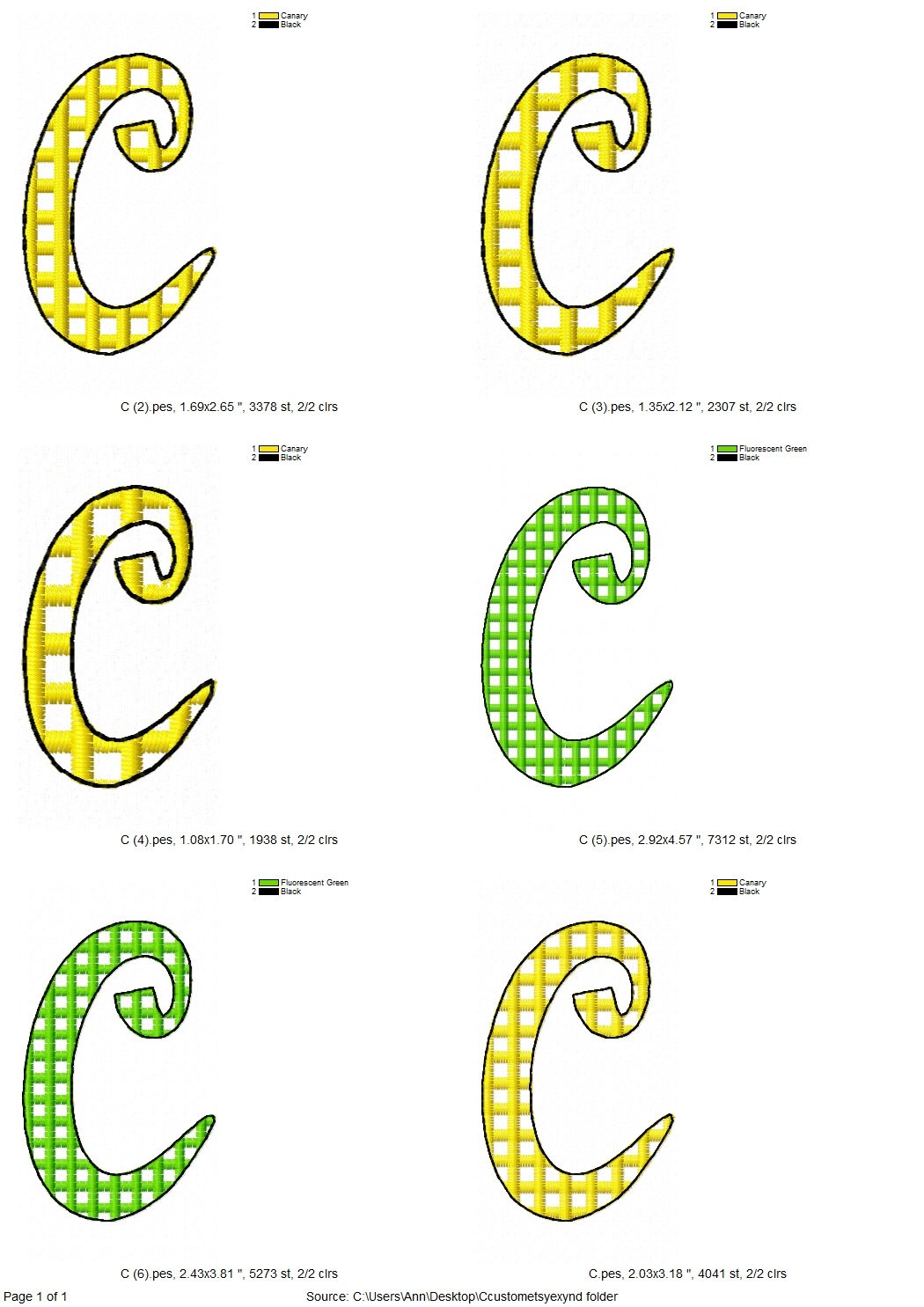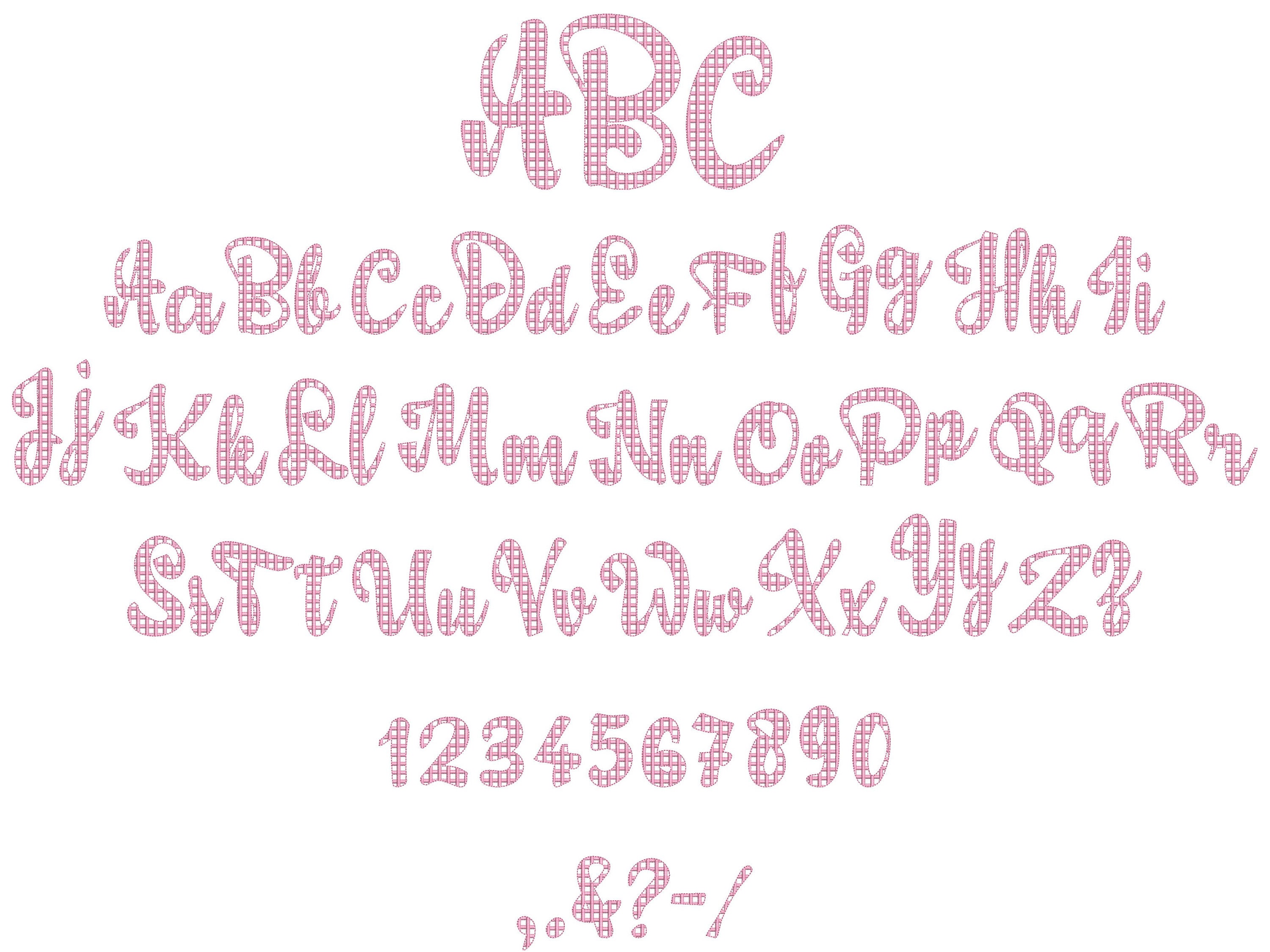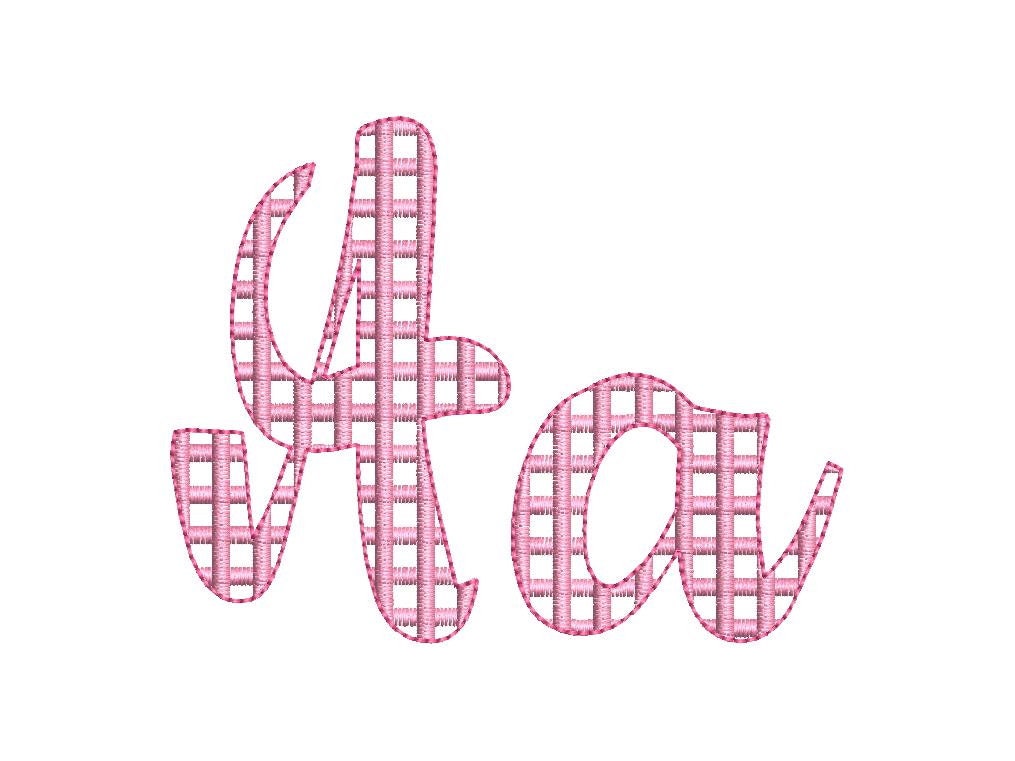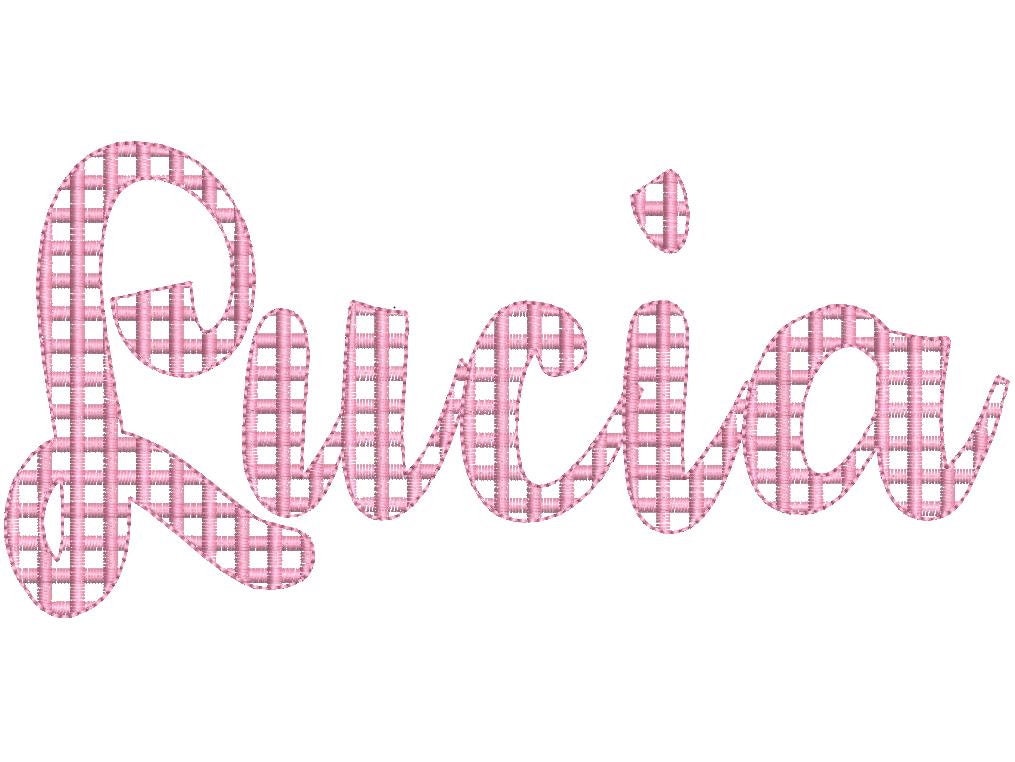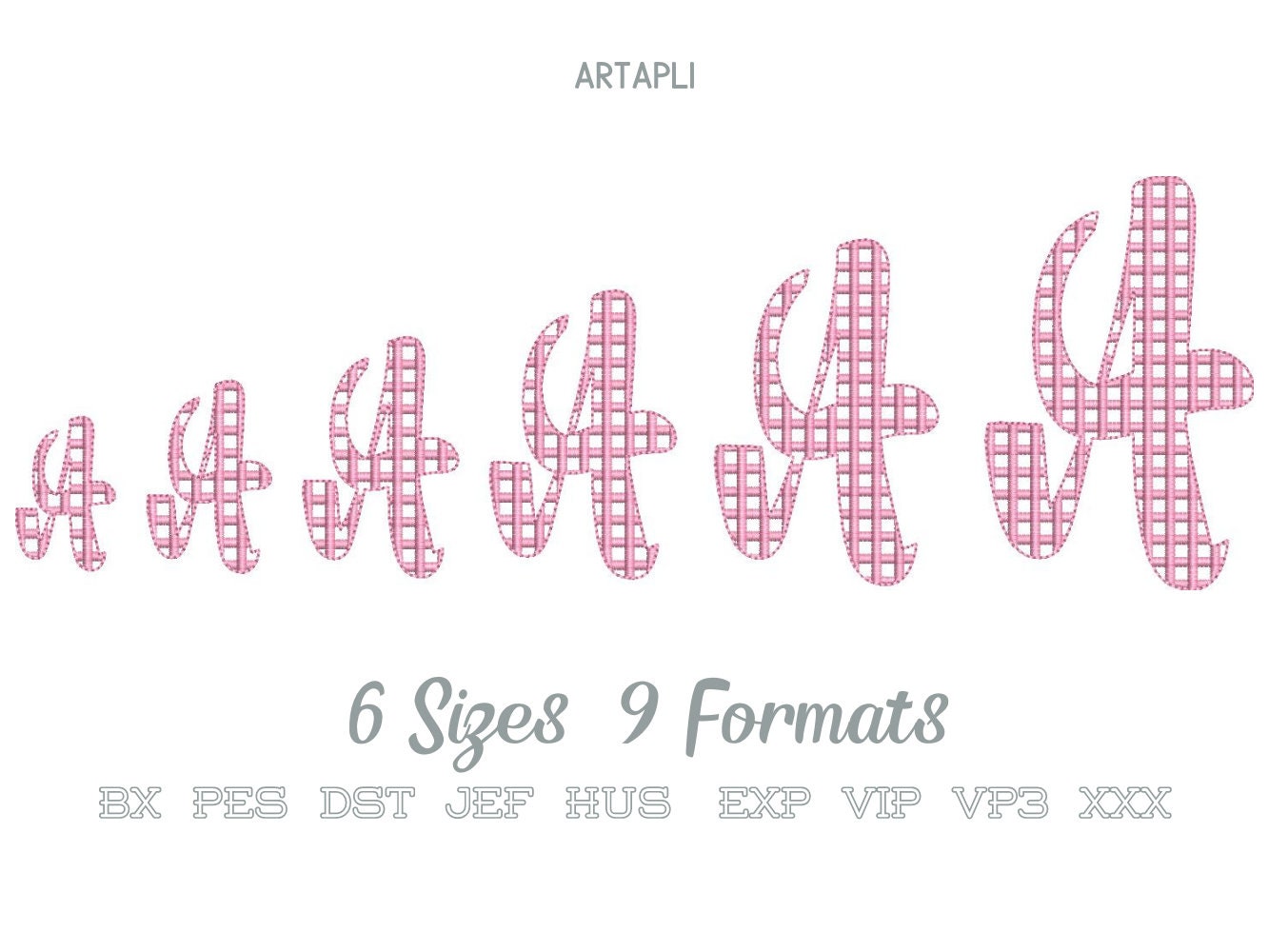
Checkered Plaid Font 2 two colors script cursive alphabet machine embroidery designs in assorted sizes plaid buffalo checkered kids name font
The font is transparent and has satin stitch checks and a light bean stitch outline.
Included: uppercase and lowercase letters, numbers and punctuation & . , - ? / !